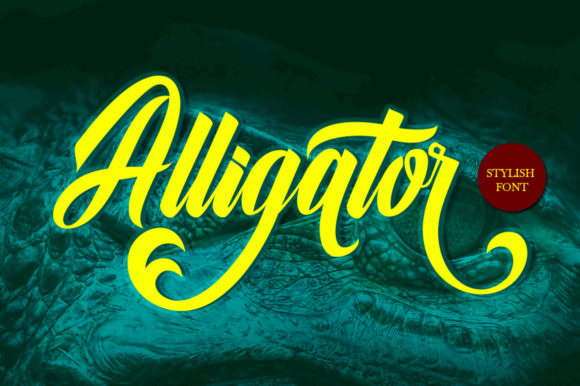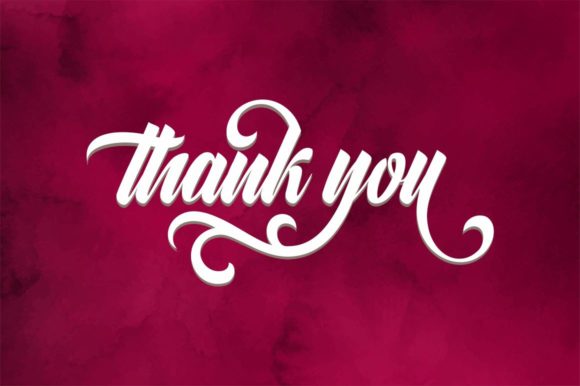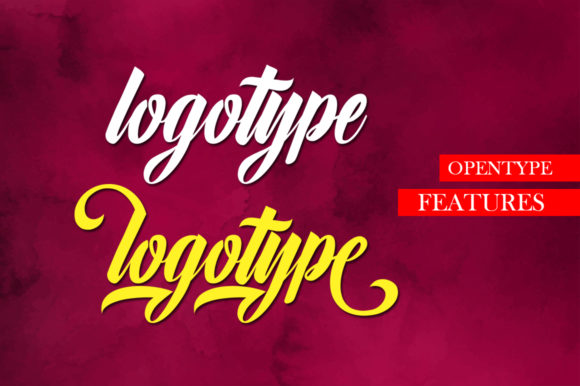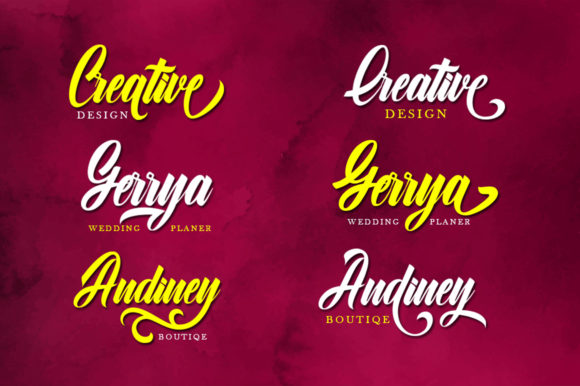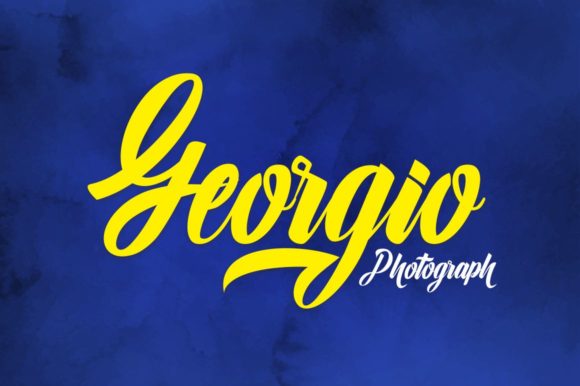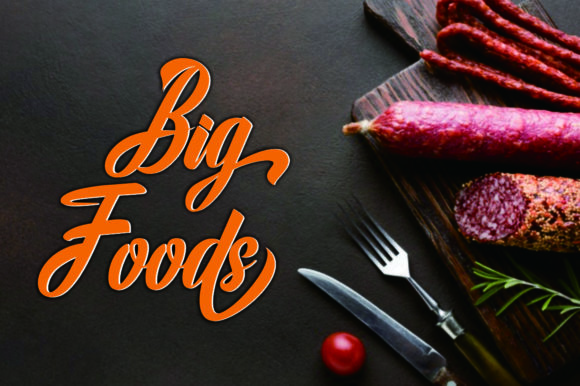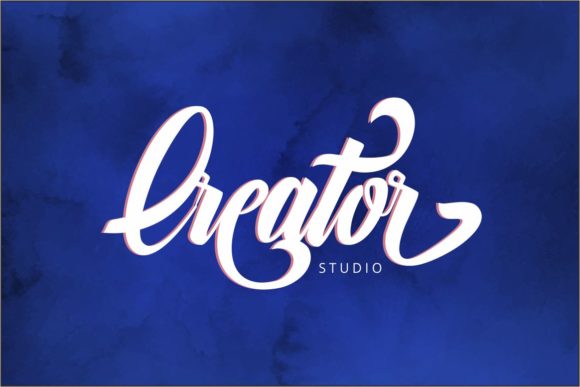
About Alligator Font
Alligator is a versatile script font that includes many different alternatives for each lowercase letter. Use this font to give your designs a cute and playful look.